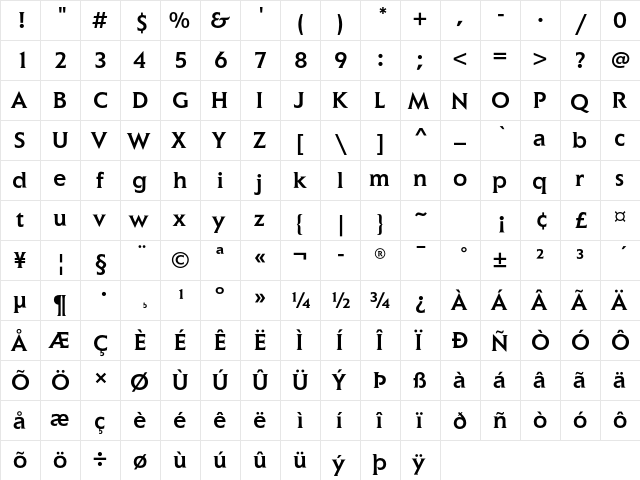
Elan ITC Std Medium
| Designer | Albert Boton |
Design Context for Elan ITC Std Typeface
Elan ITC Std takes a measured approach to typography — its balanced proportions and neutral character make it a reliable workhorse for both digital and print work.